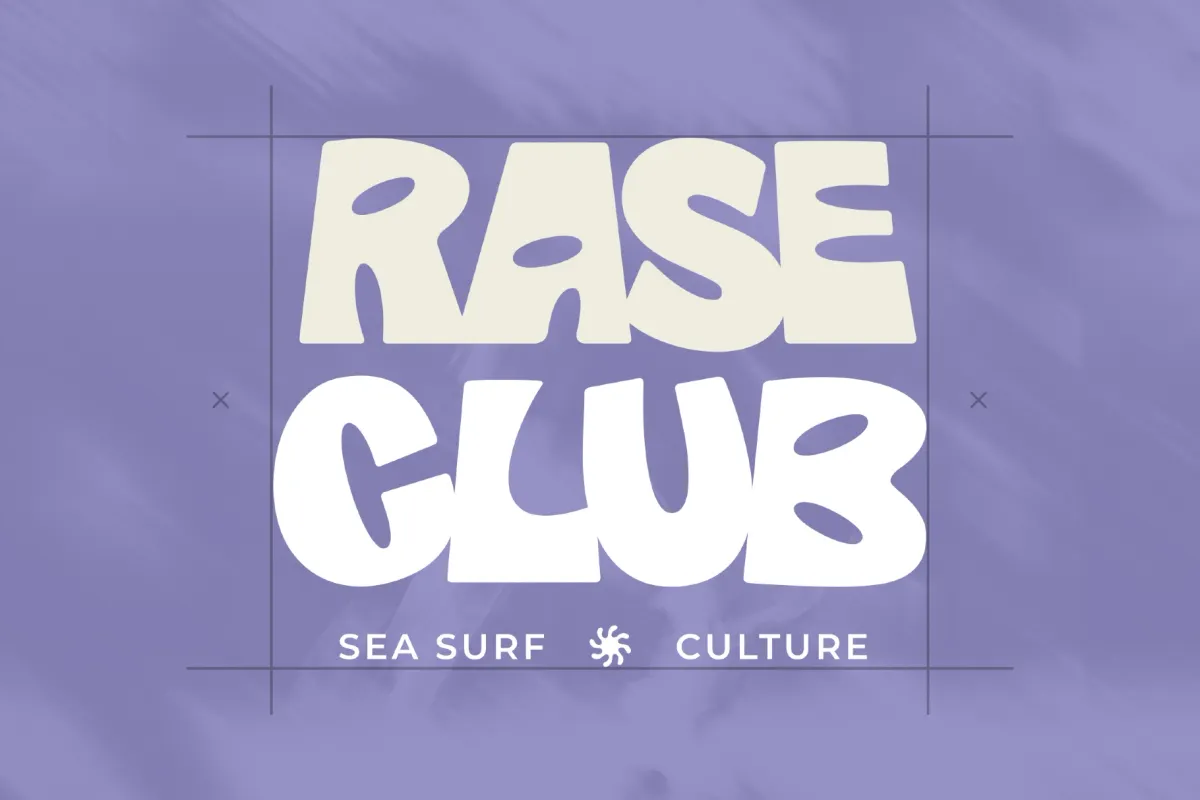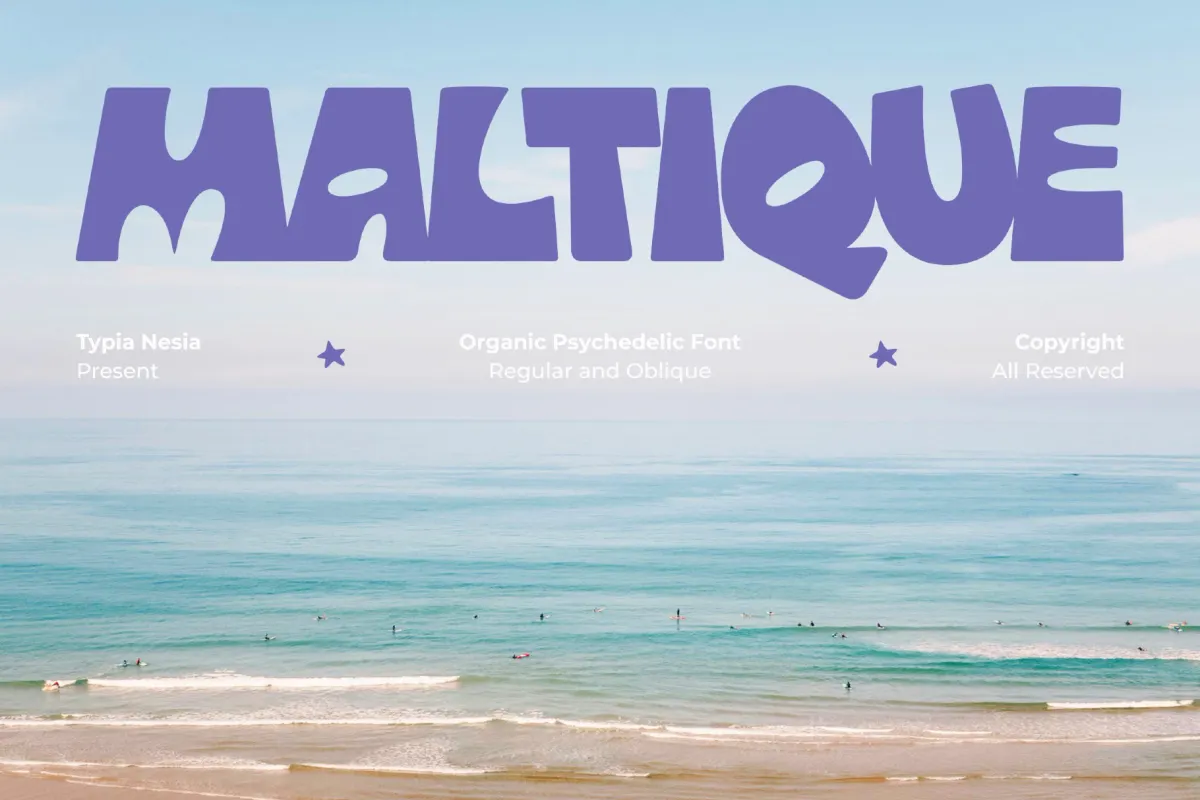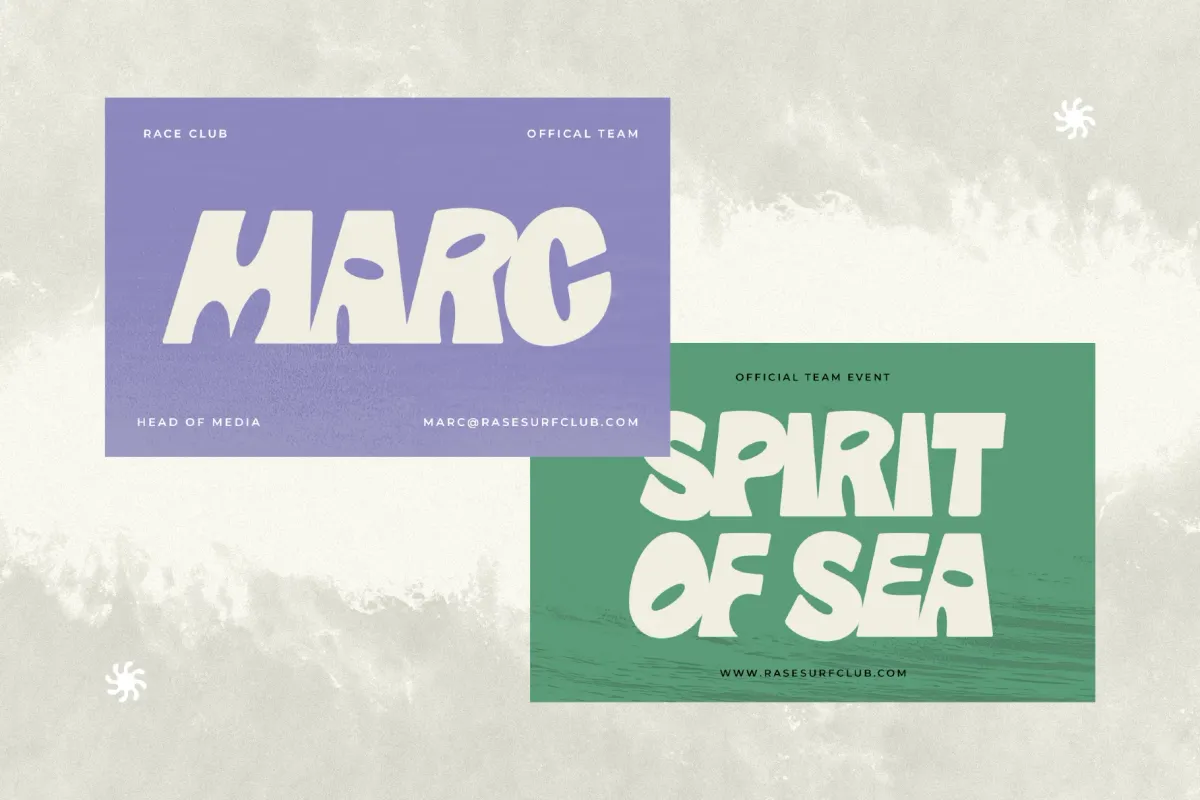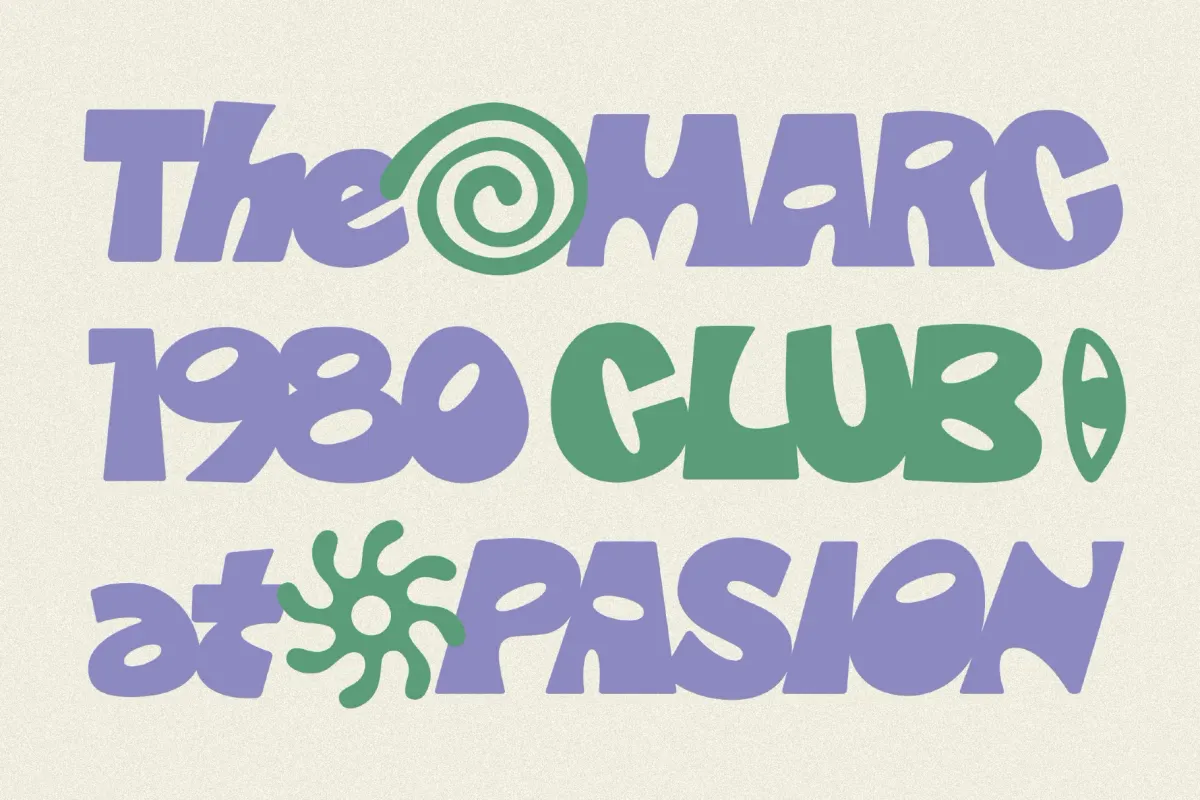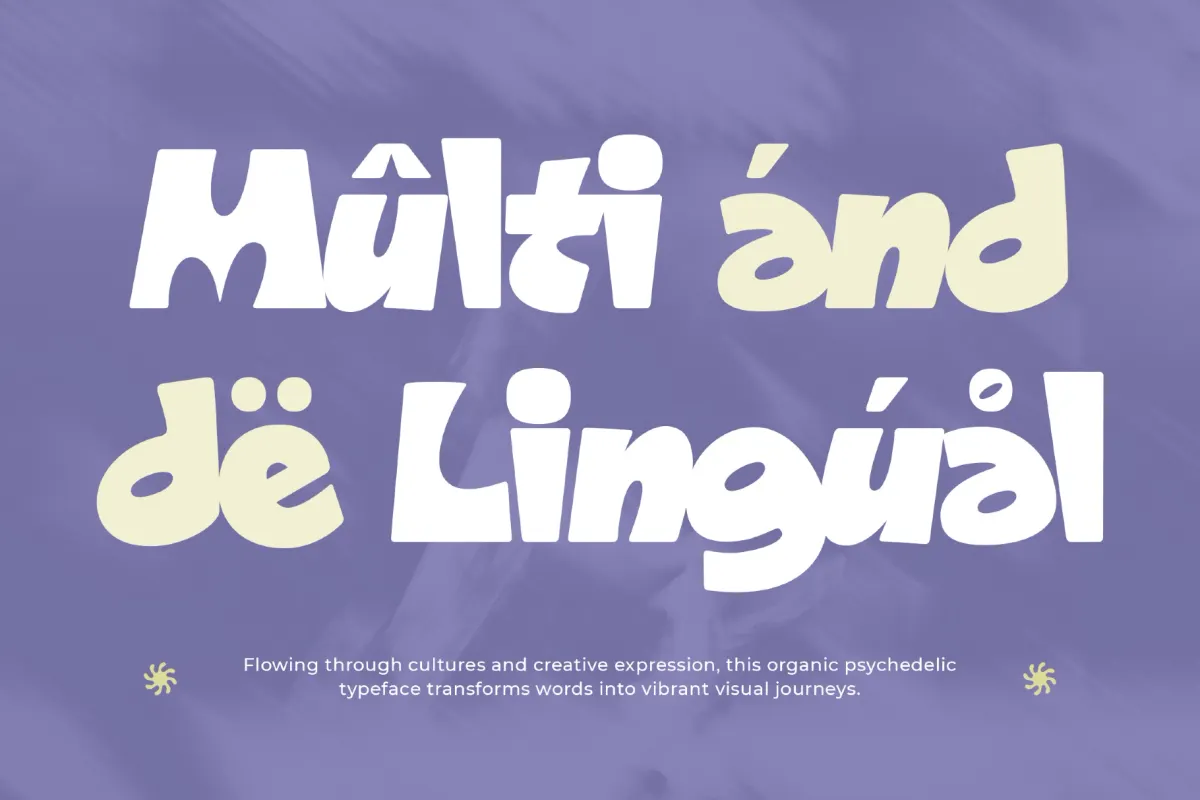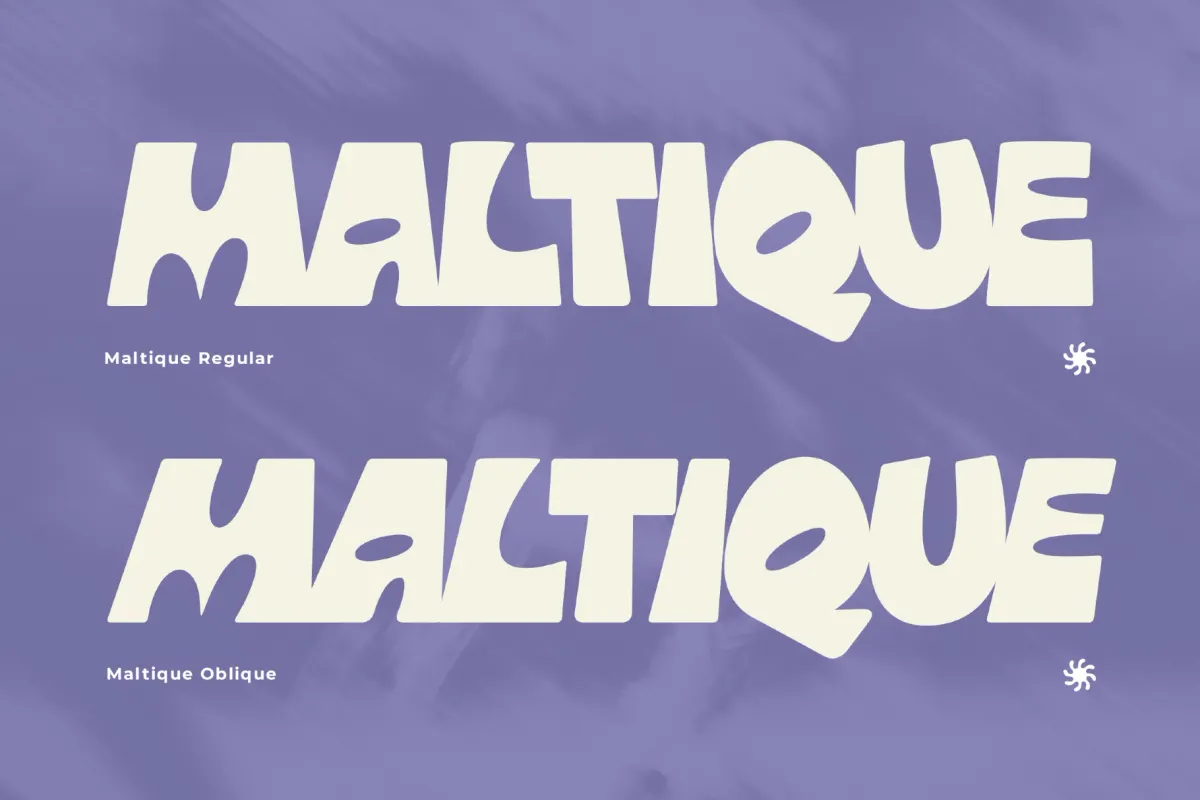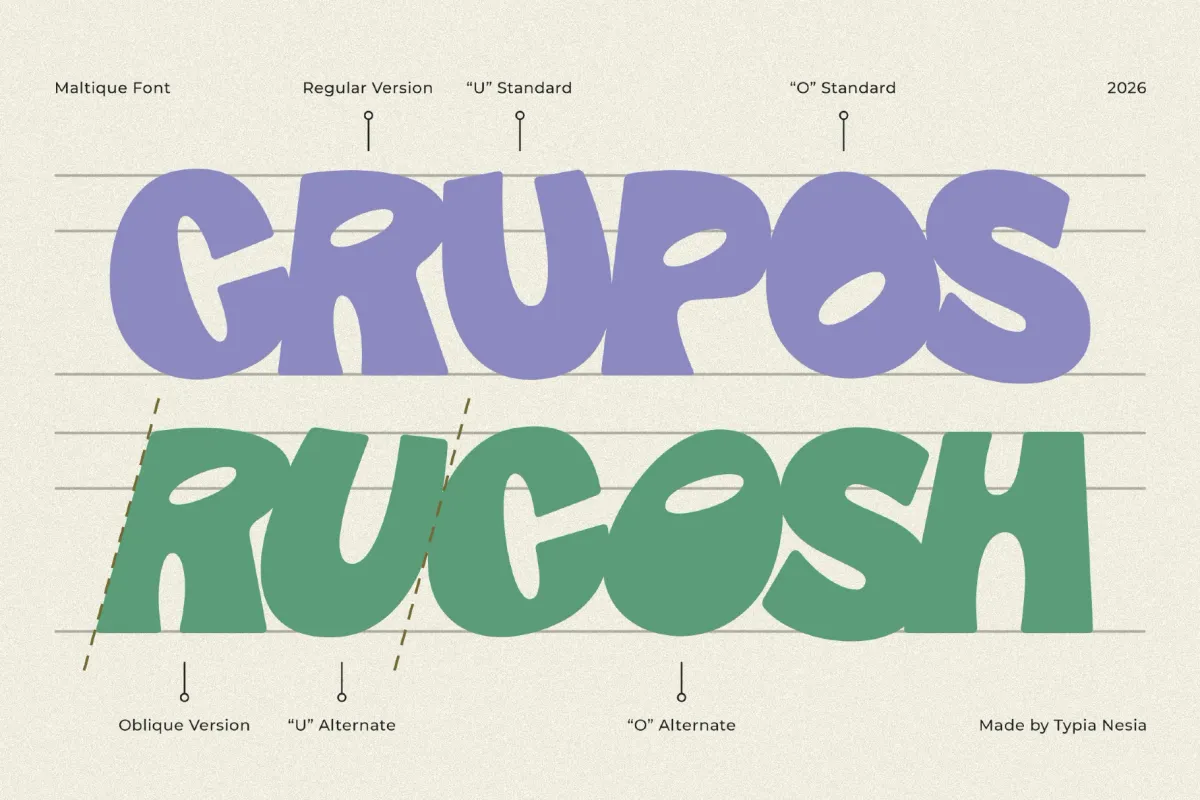
Maltique - Organic Psychedelic Display Font
Maltique bends every letterform into a soft, bubble-round shape, pairing lumpy asymmetrical curves with a loose, hand-carved rhythm that reads as pure late-60s psychedelia. Stylistic alternates swap in on select rounded letters, so a single word can shift its bulge and lean from line to line.
The companion Oblique leans the same shapes into motion, closer to a hand-painted surf-shop sign than a straight italic. Use it for music-festival branding, album covers, concert posters, café and beverage labels, vintage logos, editorial headlines, and lifestyle merchandise.
- 2 styles: Regular, Oblique;
- uppercase & lowercase;
- numerals, punctuation & symbols;
- stylistic alternates;
- multilingual support;
- 202 glyphs per style